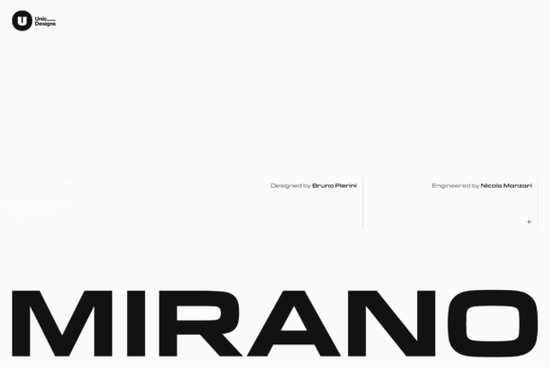
Looking for a clean, modern font with a mechanical edge that still feels premium? The Mirano Extended Font delivers exactly that perfect for branding, packaging, or digital interfaces where clarity and confidence matter. It’s inspired by classic automotive lettering, especially the iconic German “star” brand, but reimagined for today’s design needs. If you’re working on something bold, structured, and timeless, this typeface stands out without shouting.
What makes Mirano Extended different from other sans-serif fonts?
Built on a deep study of Eurostile a well-known geometric typeface Mirano pushes that style further. It keeps the precision and engineering feel but adds more space, sharper details, and a cleaner finish. This isn’t just another retro-inspired font. It’s designed to work across multiple platforms and sizes, from large headlines to small UI elements.
The family includes weights from Light to Bold, each with a matching italic. These aren’t just slanted versions they’re thoughtfully crafted to maintain rhythm and compactness while adding a sense of motion. Whether you're designing a logo, a product label, or a website header, Mirano gives your project a confident, forward-moving presence.
Professional features that make design easier
Designers love Mirano because it comes packed with OpenType features. You get:
- Ligatures for smoother text flow in longer passages
- Stylistic sets to switch up letterforms subtly (great for logos)
- Case-sensitive glyphs so uppercase and lowercase letters align perfectly
- Positional numerals for a more authentic, typographic look
These tools let you fine-tune your design without extra effort. Want a more dynamic headline? Use the stylistic sets. Need numbers that fit a vintage aesthetic? Positional numerals handle that seamlessly.
Where can I use Mirano Extended effectively?
If you’re into print-on-demand products, this font works beautifully on t-shirts, mugs, and posters. Its strong structure holds up at small sizes, and the geometric shape gives designs a polished, professional touch. For small businesses, it’s ideal for websites, business cards, or packaging that needs to stand out on shelves.
It also fits well in adventure-themed projects think outdoor gear brands, travel journals, or off-road vehicle promotions. If you’re exploring fonts like adventure-style sans-serifs, Mirano brings a similar energy but with a more refined, modern twist.
For tech-focused or minimalist branding, its clean lines and consistent spacing make it a reliable choice. Designers building digital interfaces will appreciate how well it scales and reads on screens. Check out cloud-themed sans-serif fonts if you’re looking for a similar vibe but Mirano leans more into mechanical precision than airy abstraction.
How does Mirano compare to other fonts in its category?
While many fonts mimic retro automotive styles, few balance modern usability with historical inspiration as well as Mirano does. It avoids clichés while keeping that nostalgic edge. Compared to others like Vosage, which has a more organic, hand-crafted feel, Mirano is tighter, more rigid, and built for consistency across systems.
Its extended width gives it a unique presence ideal when you want a typeface to fill space without overcrowding. It’s not overly wide, but it does open up layout possibilities that standard widths can’t offer.
You can explore more options in the Mirano Extended Font collection to see how it performs in real-world settings. Each weight and style is tested for legibility, spacing, and visual harmony.
Mirano Extended Font Adventure Font Cloud Font Vosage FontReady to try it? Download the full set and test it in your next project. Use the ligatures and stylistic sets to add subtle personality. Pair it with neutral colors or bold contrasts to let the font shine.
- Use stylistic sets for unique logo variations
- Pair with a simple serif or monospace font for contrast
- Check how positional numerals look in pricing or labels
Once you’ve used Mirano Extended in a few real projects, you’ll notice how it helps your work feel more intentional like every letter was chosen for a reason.